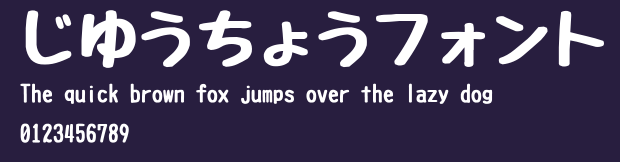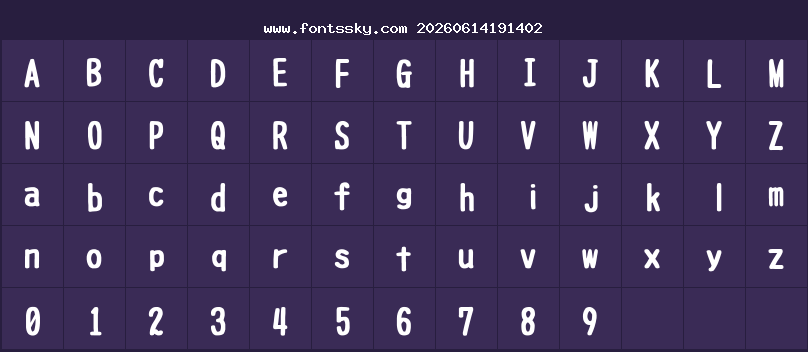
じゆうちょうフォント Preview
• Font Name: じゆうちょうフォント
• Font ID: じゆうちょうフォント
• Full Font Name: じゆうちょうフォント
• Version: Version 2.084
• PostScript Name: Jiyucho
• Character Count: 14964
About じゆうちょうフォント.ttf
じゆうちょうフォント.ttf is a modern, elegant sans-serif font designed for ultimate readability and visual harmony. Perfect for branding, headlines, web design, and print materials.